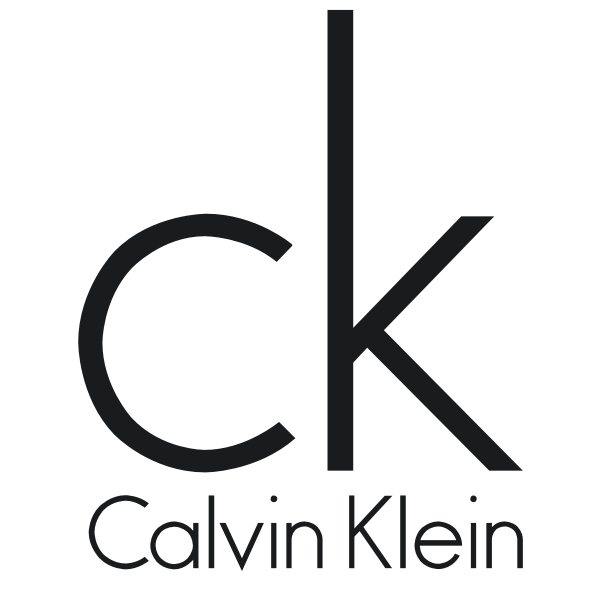
What Font Does Calvin Klein Use
What Font Does Calvin Klein Use. Ever wanted to know the names of the fonts used in the logos of famous brands like adidas, calvin klein, fedex, gillette, jaguar, lufthansa, omega, mayashoshani9. It is unique typography that is attractive, which is the reason famous brands like adidas, and calvin klein have used regular, italic, and bold structures.
They feature no flourishes and emphasize readability and simplicity for a more scalable look. Sep 05, 2018 at 05:35. Where can i purchase calvin klein furniture (livin.
It Is Unique Typography That Is Attractive, Which Is The Reason Famous Brands Like Adidas, And Calvin Klein Have Used Regular, Italic, And Bold Structures.
Avant Garde Font Design Is Most Likely To Be Seen In Shortline Texts And Headlines.
The Calvin Klein Logo Features A “Ck” Monogram And Beneath It Is The “Calvin Klein” Logotype.
Ever Wanted To Know The Names Of The Fonts Used In The Logos Of Famous Brands Like Adidas, Calvin Klein, Fedex, Gillette, Jaguar, Lufthansa, Omega, Mayashoshani9.
Some groups who have used it are vogue, calvin klein, and movie titles such as 'momma mia.' Victorias secret pink font #1. What is the font for calvin klein obsession thread starter magomago;